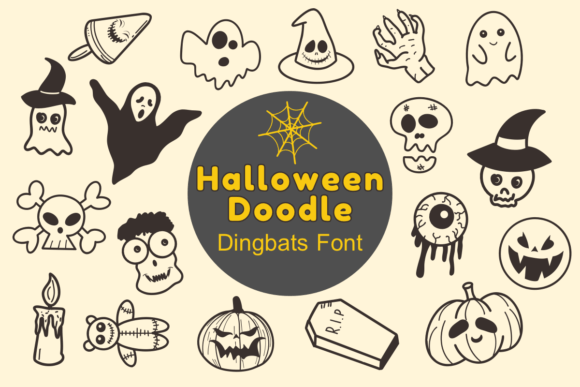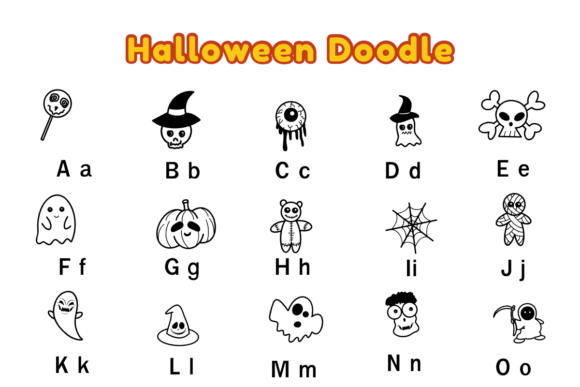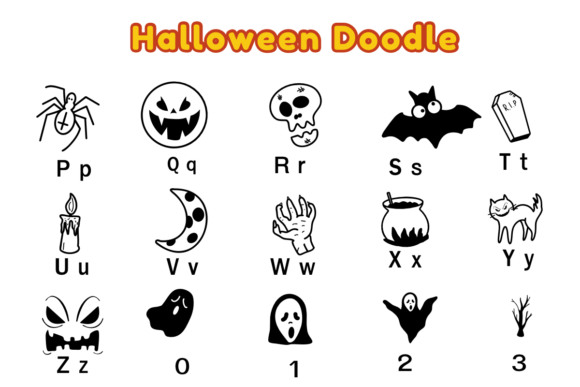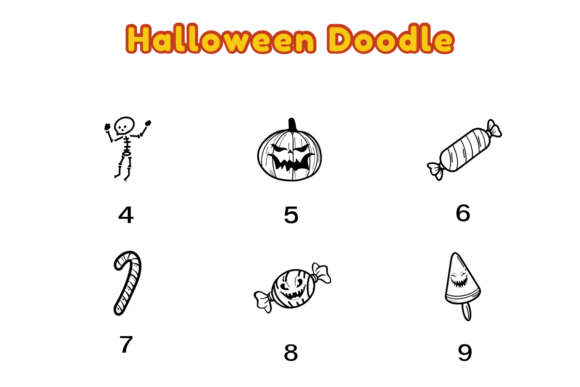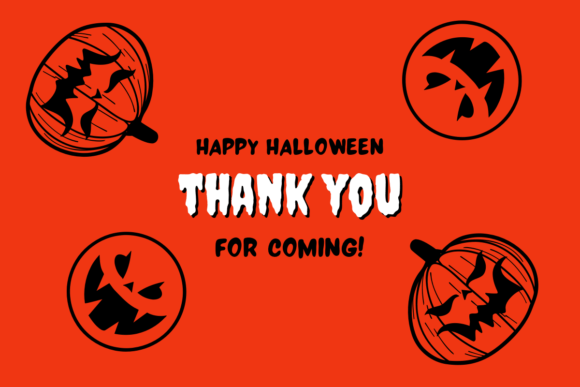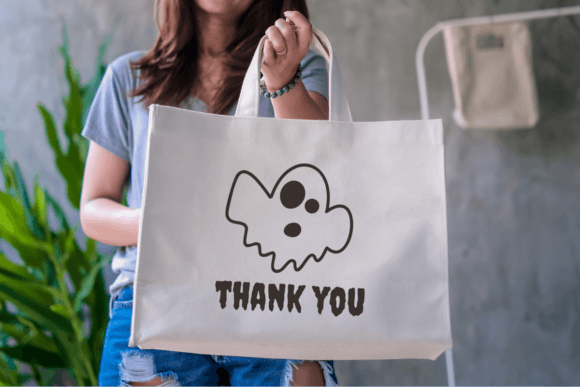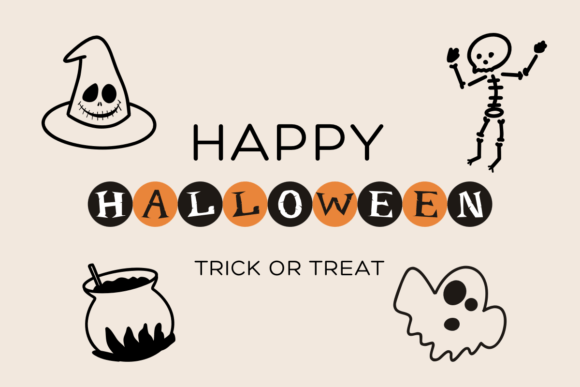
Spooky Messages in Style
As the sun sets on a crisp autumn evening, and the leaves begin to rustle with the wind, the creative juices start flowing. You find yourself in front of your computer, trying to conjure up the perfect design for your Halloween party invitations. Suddenly, you stumble upon a font that brings your spooky imagination to life – a font that’s as playful as it is eerie.
This is where the Halloween Doodle Font comes in – a special font where each letter is shaped like something spooky or fun for Halloween, like bats, pumpkins, ghosts, or witches’ hats. It’s a creative way to write Halloween messages using pictures instead of plain letters, adding a touch of whimsy to your designs.
For designers, the Halloween Doodle Font is a valuable tool that can elevate their designs and make them stand out from the crowd. With its unique and playful style, it’s perfect for creating eye-catching invitations, decorations, and other Halloween-themed materials.
Halloween Doodle Font Key Features
- Unique Characteristics: The Halloween Doodle Font features a spooky, hand-drawn design with intricate details and textures, perfect for adding a creepy touch to Halloween-themed projects.
- Characters and Glyphs: The font includes a wide range of characters, including uppercase and lowercase letters, numbers, punctuation marks, and special symbols, as well as Halloween-themed icons and decorations.
Halloween Doodle Font Review
I recently had the chance to work with the Halloween Doodle Font, and I must say it’s a unique addition to any spooky-themed design project ✨. Here are some of its strengths:
- Whimsical illustrations: The font includes a variety of doodles and illustrations that add a playful touch to any design.
- Customization options: You can easily customize the font to fit your design needs, from changing the color to adjusting the size.
- High-quality glyphs: The font’s glyphs are well-designed and easy to read, even at small sizes.
However, I did encounter some limitations ⚠️:
- Limited language support: The font only supports a limited range of languages, which may be a problem for international designs.
- Not ideal for body text: While the font is perfect for headings and titles, it’s not the best choice for large blocks of body text due to its playful nature.
- Some characters may not render correctly: I experienced some issues with certain characters not rendering correctly in certain software or browsers.
Overall, the Halloween Doodle Font is a fun and creative addition to any design project, but it’s not without its limitations. If you’re looking to add a playful touch to your spooky-themed designs, this font is definitely worth checking out. Just be aware of its limitations and use it accordingly.
Halloween Doodle Font: A Practical Application Guide
Use the Halloween Doodle Font to add a spooky touch to your designs. Try combining it with other Halloween-themed elements, such as jack-o-lanterns or bats.
Experiment with different font sizes and styles to create a unique look.
Halloween party invitations
Halloween-themed social media posts
Halloween decorations and signage
What is the minimum font size recommended for the Halloween Doodle Font?
The recommended minimum font size for the Halloween Doodle Font is 14 points. At this size, the font’s details and doodles will be visible and legible. Using a font size smaller than 14 points may result in the font becoming difficult to read.